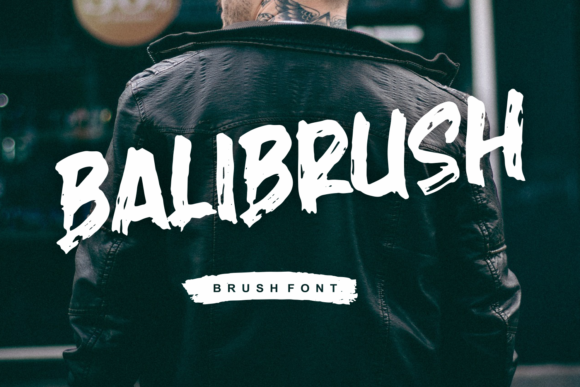
The Balibrush Font: A Handwritten Gem for Your DIY Projects
I’ll never forget the moment I stumbled upon the perfect font for my DIY project. I was working on a handmade journal, pouring my heart and soul into the design, but something was missing. The font I was using just didn’t have that personal touch I was looking for. That’s when I discovered Balibrush, a stunning handwritten font that paired the elegance of a pencil with the uniqueness of a brush pen. ✨
A Personal Review of Balibrush
- ✨ Authentic look: Balibrush has an incredibly endearing and authentic look that makes it perfect for DIY projects, journals, and planners.
- ✅ Ease of use: This font is easy to read and works well for both headings and body text.
- 💫 Unique style: The combination of a brush pen and pencil gives Balibrush a distinctive style that’s hard to find in other fonts.
While Balibrush is an amazing font, there are a few things to keep in mind: 🤔
- ⚠️ Limited use in formal designs: Due to its handwritten nature, Balibrush might not be the best choice for formal documents or professional designs.
- ⚠️ Glyph limitations: Some users have reported that the font could benefit from more glyphs and special characters.
The Story Behind Balibrush
Balibrush was created with the intention of capturing the essence of handmade craftsmanship in a digital font. The designer aimed to combine the fluidity of a brush pen with the precision of a pencil, resulting in a unique and authentic look. 💫
A: Balibrush is versatile and can be used for headings, body text, and emphasis. Experiment with different sizes and styles to find the perfect fit for your design.
A: Absolutely! Balibrush works well for both digital designs (such as websites and social media graphics) and print designs (like brochures and posters).